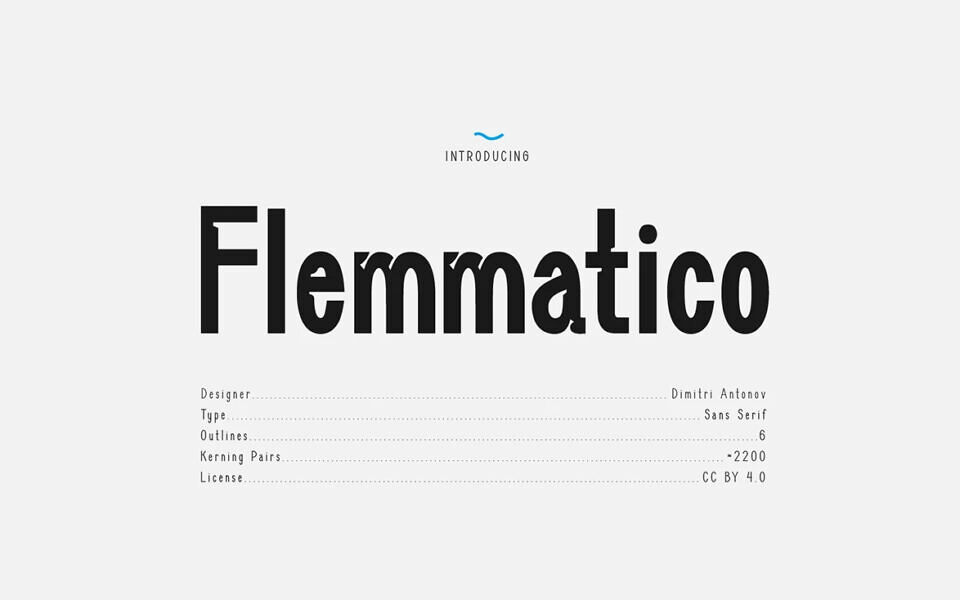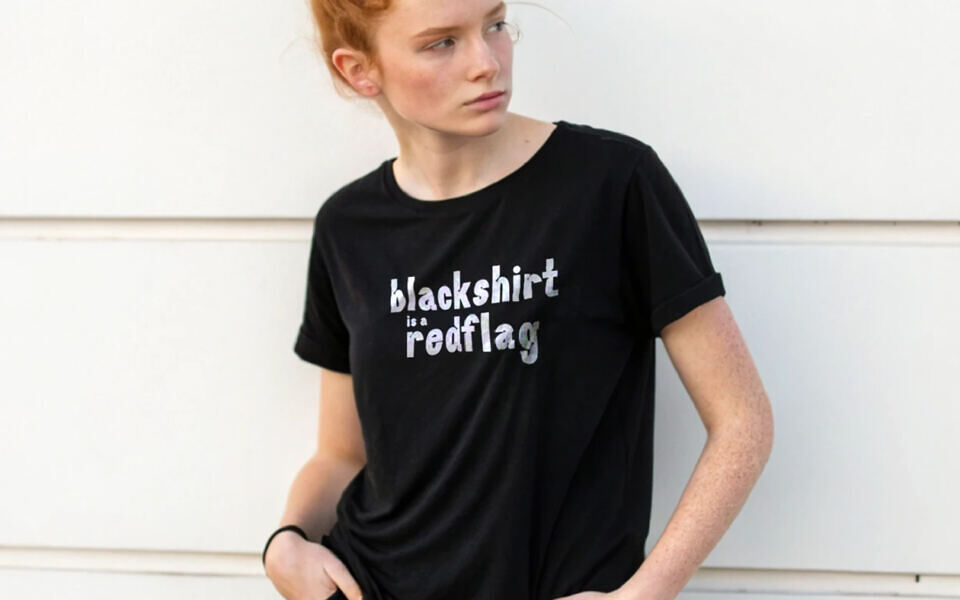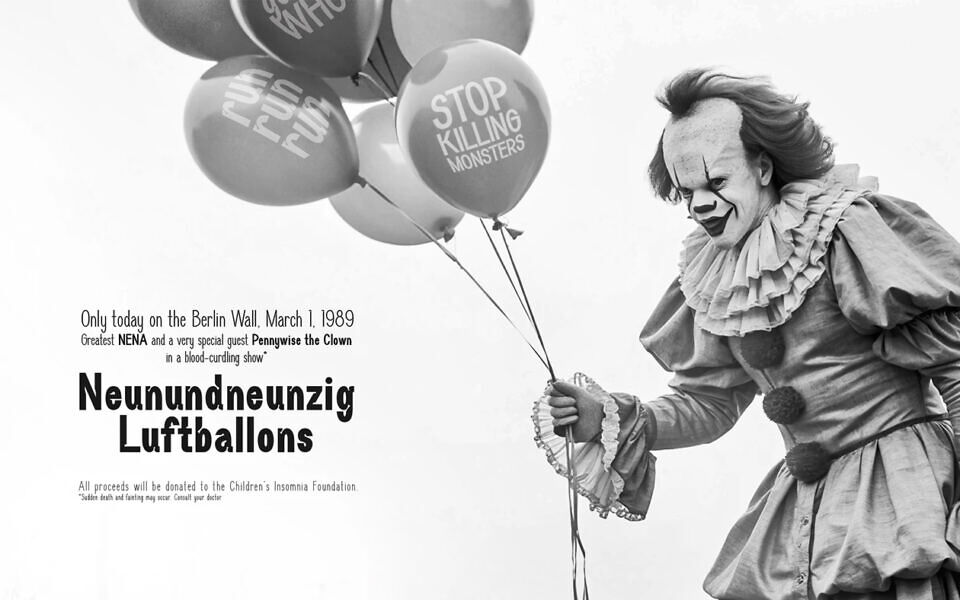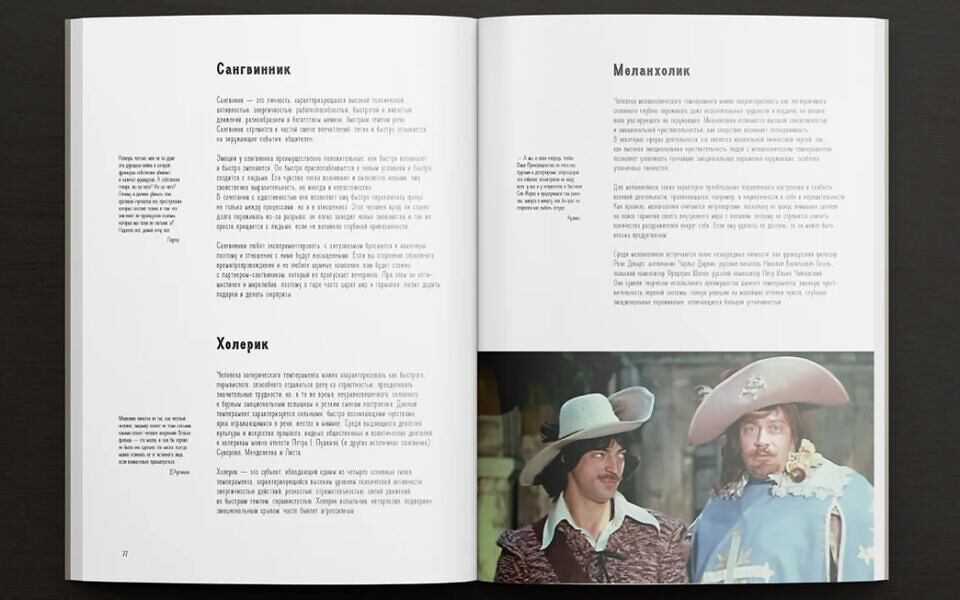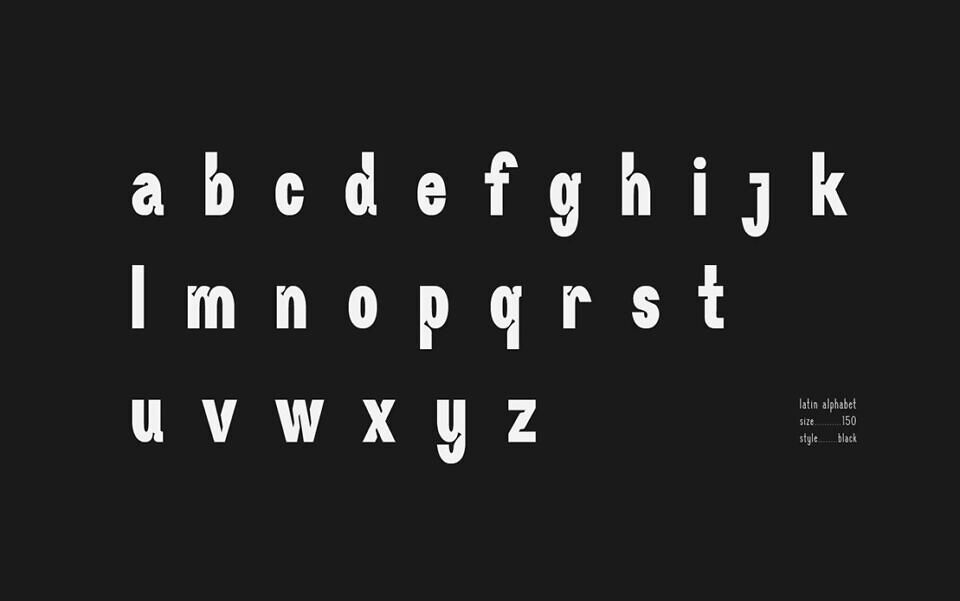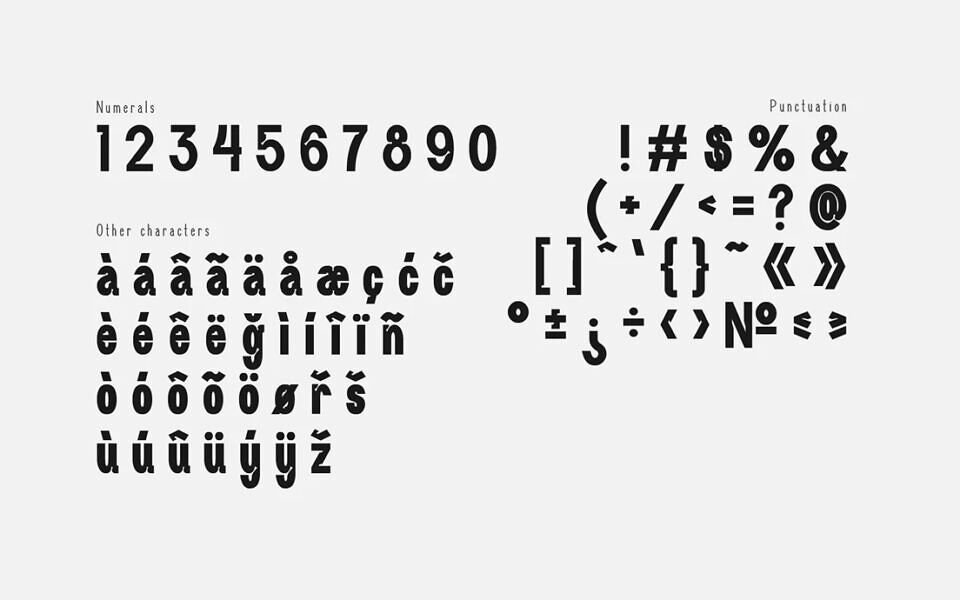
Flemmatico is a sans-serif font designed by Dimitri Antonov. It is an “anti-urban, organic grotesque” with pure forms and impeccable functionality, ideal for expressive headlines and comfortable-to-read text.
Inspired by ancient epigraphy and Renaissance fonts, it features 260 characters across 6 styles, supports 20 languages, and includes approximately 2200 kerning pairs for optimal rhythm and readability. The font has a modern yet elegant feel, combining a classic design with digital perception.